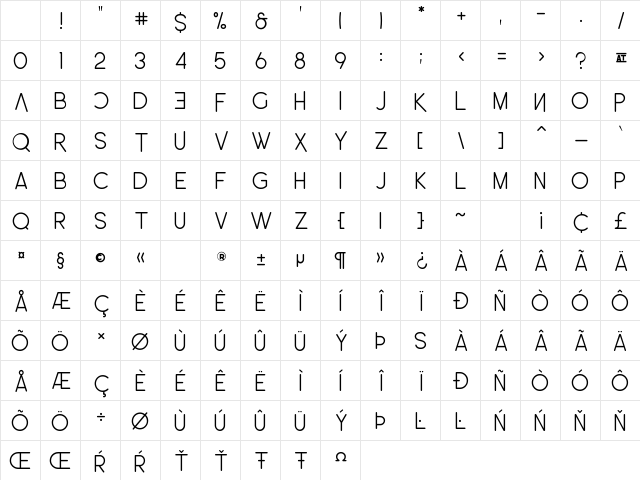
Complete Leo Rounded Light Regular glyph index. Displaying only characters natively supported by Leo Rounded Light Regular font.
Leo Rounded Light softens its letterforms with rounded terminals, giving it an approachable, friendly quality that works well in consumer-facing and digital contexts. Its slender proportions lend an understated elegance to any composition.
Font Pairing: Pairs well with a rounded or humanist sans for body copy, maintaining the friendly tone without relying on Leo Rounded Light to carry extended reading.
Pro Tip: Use Leo Rounded Light for UI elements, app interfaces, and anywhere a friendly, approachable tone needs to be maintained without sacrificing clarity.